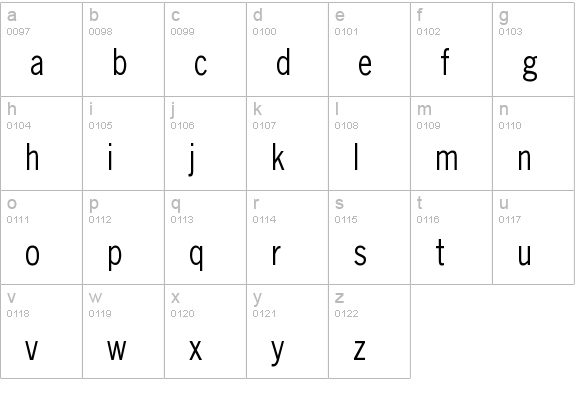
NewsGothicCnd-N Font Details
NewsGothicCnd-N is a modern and versatile font that exudes sophistication and professionalism. With its clean lines and sleek design, this font is perfect for a wide range of design projects, from website headers to print materials. Its timeless appeal makes it a go-to choice for designers looking to make a statement. The best part? NewsGothicCnd-N is available for free download at FontsMarket.com. This means you can access this high-quality font without breaking the bank, making it an excellent option for both personal and commercial use. Don't miss out on the opportunity to enhance your designs with the stylish NewsGothicCnd-N font today!